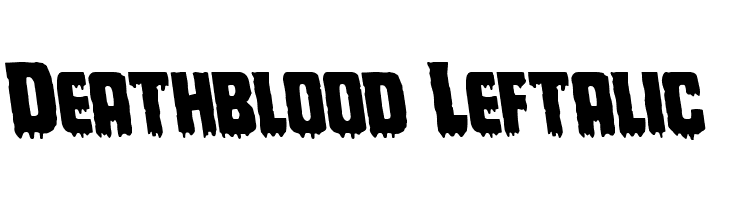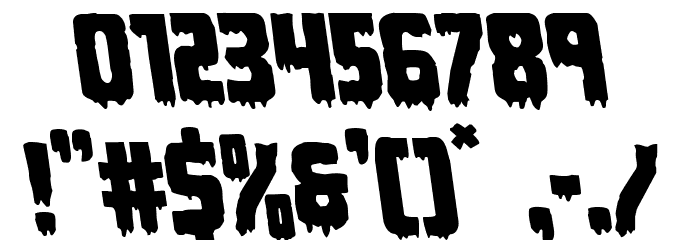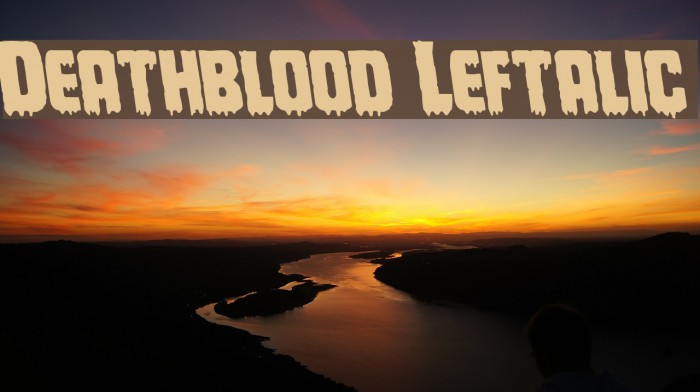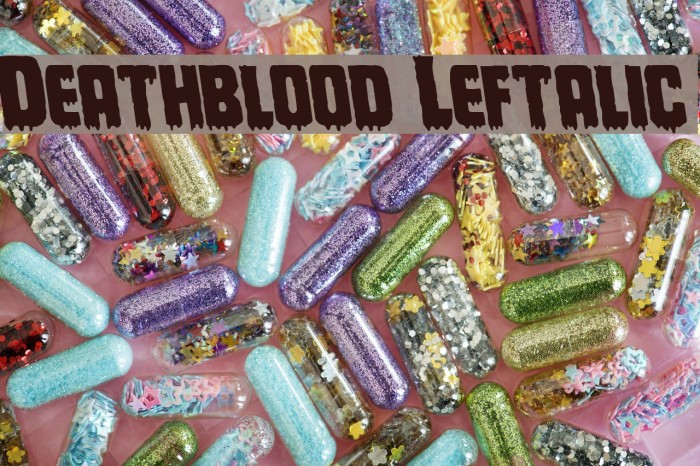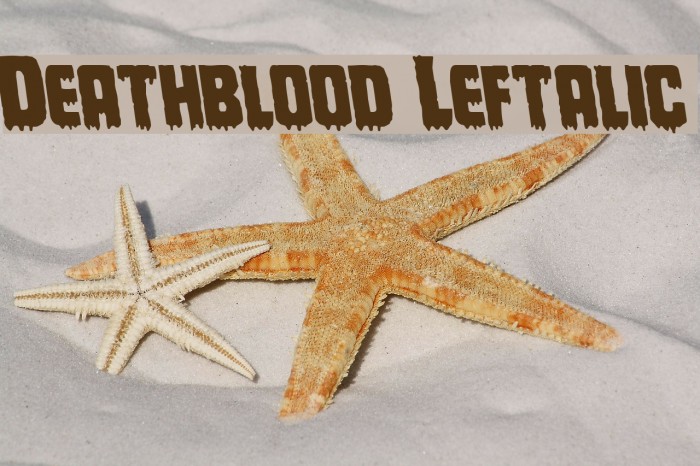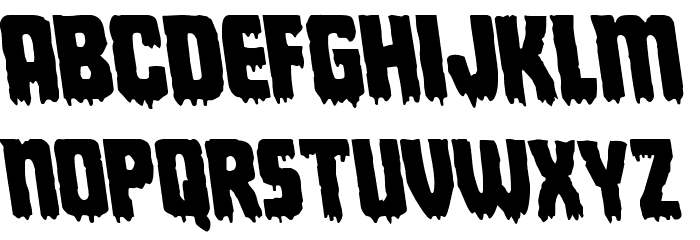
Deathblood Leftalic Font
Deathblood Leftalic Description
This font features a bold and dramatic style with a dripping effect that gives it a horror-themed appearance. The characters are thick and blocky, with uneven edges that mimic the look of melting or dripping liquid. This design choice creates a sense of movement and chaos, making it ideal for projects that require a spooky or eerie aesthetic. The uppercase and lowercase letters maintain a consistent style, ensuring readability while still delivering a strong visual impact. Numbers and special characters are included, matching the overall theme with their bold and dripping design.
Proposed ProjectsIdeal for Halloween posters, horror movie titles, haunted house flyers, and themed party invitations.